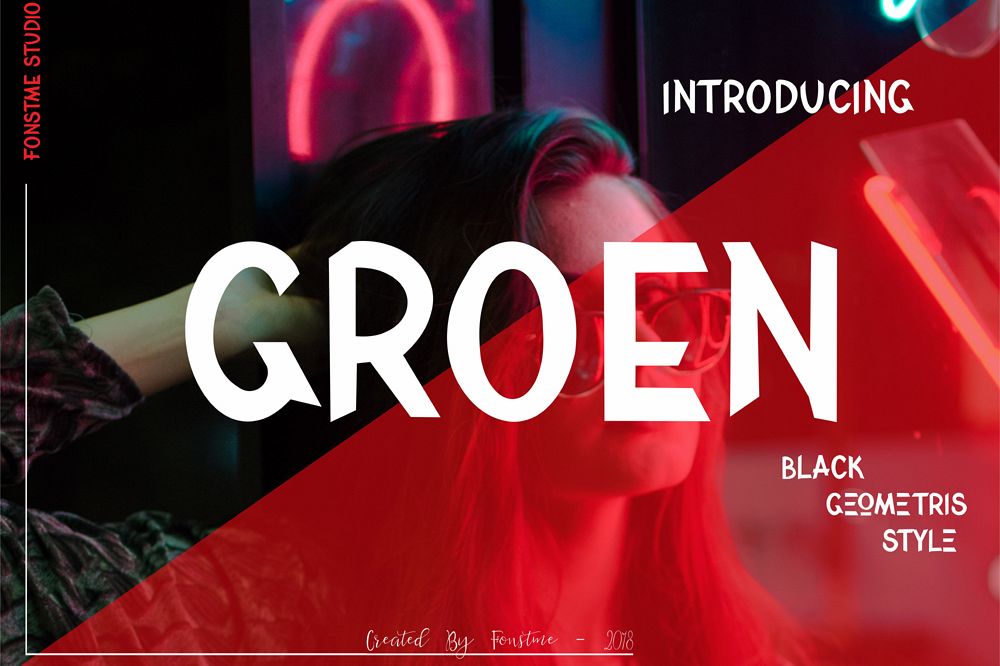
GROEN
GROEN fonts This modern letter and outline has been attentively written, with gentle curves rough and clear a font thats completely distinctive and original. It contains a full set of uppercase letters, a large range of punctuation, numerals, and multilingual support. Perfect for adding a elegant and unique touch to your lettering projects and brandingAlso with your help, you can create a Wedding lettering or beautiful frame for your home. Or just use for your small business, book covers, stationery, marketing, magazines and more. What's included